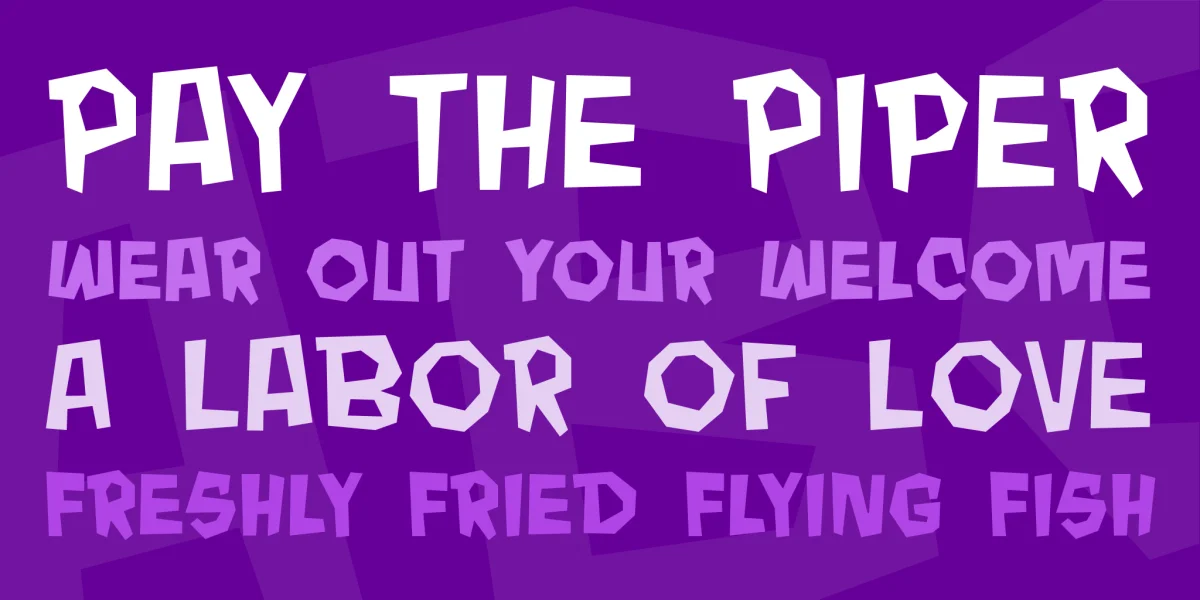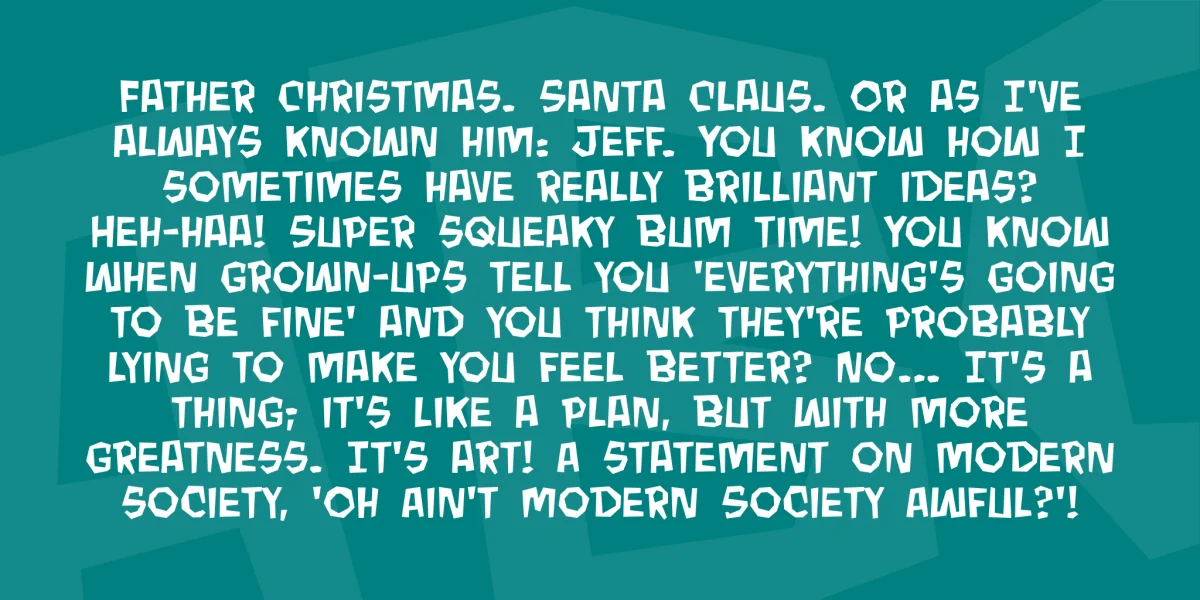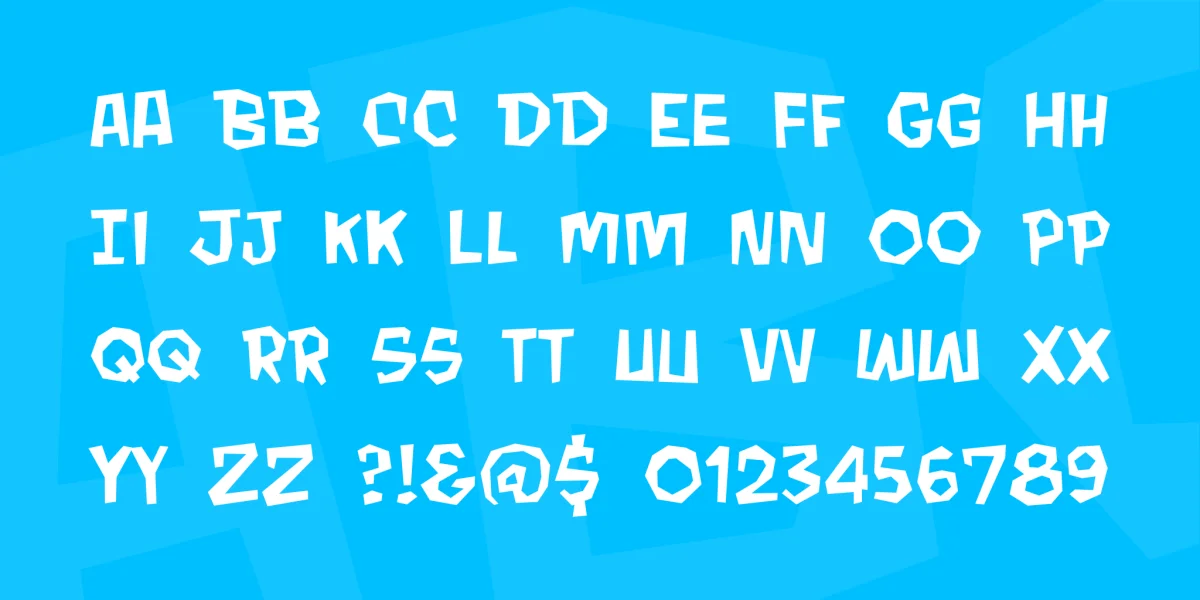
A little retro and a lot weird! MONDO BEYOND is a bizarre dialogue font for characters that might not be right in the head. Includes Regular and Bold!